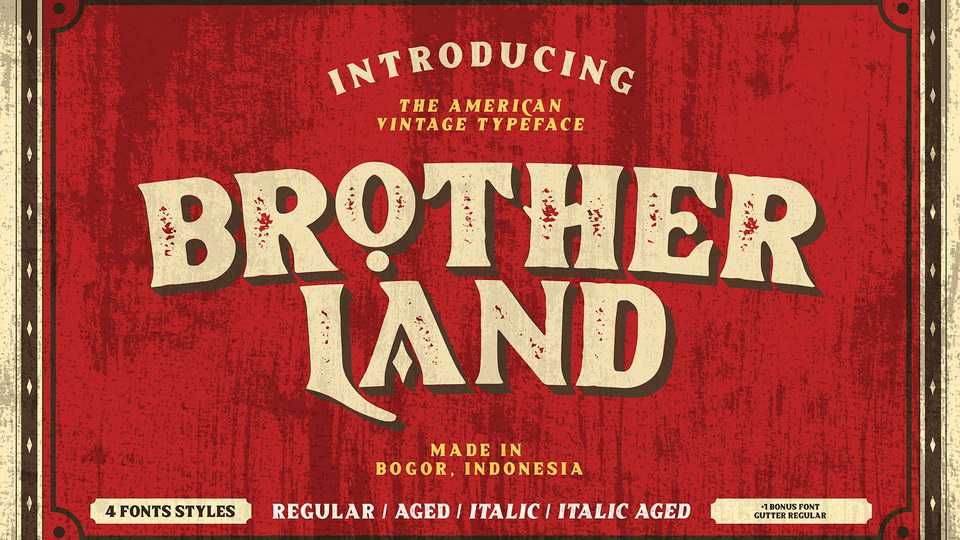
Download Brotherland font, a hand drawn typeface with rough and vintage character inspired from American Vintage typography. Brotherland typeface is perfect for logos, badges, typography and any vintage design needs.
Designer: Dikas Studio